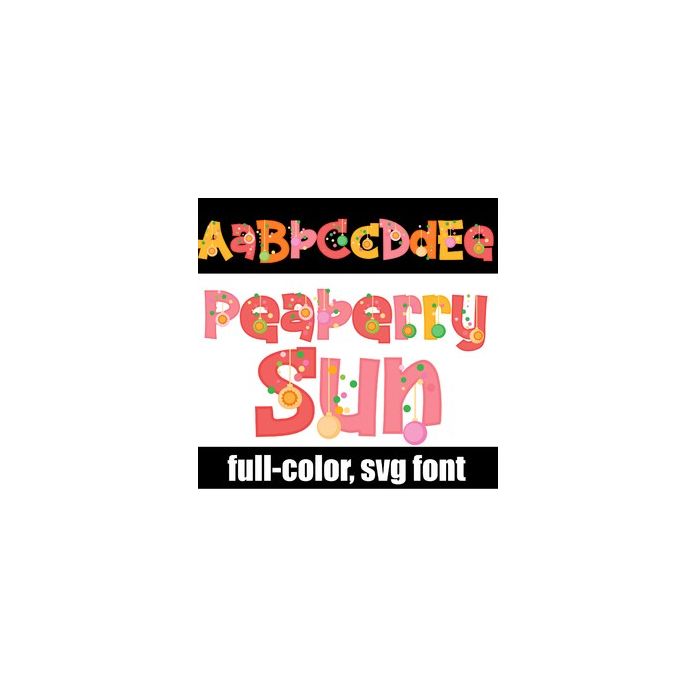
This full-color font features a warm-color palette in whimsical lettering with ornaments and sun. There is a second version of each upper and lowercase letter in a different color available through Silhouette's glyph map.